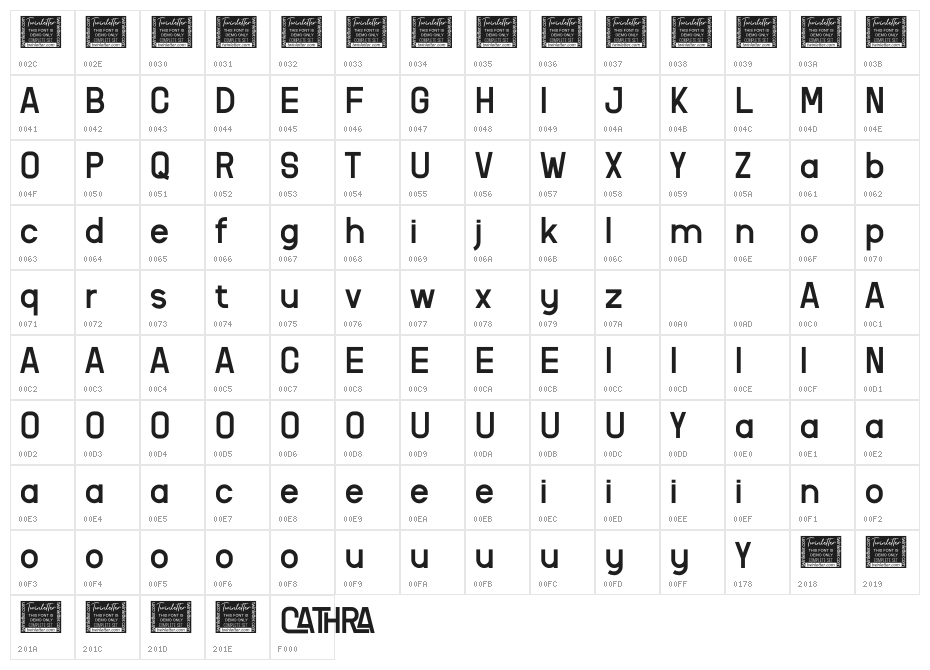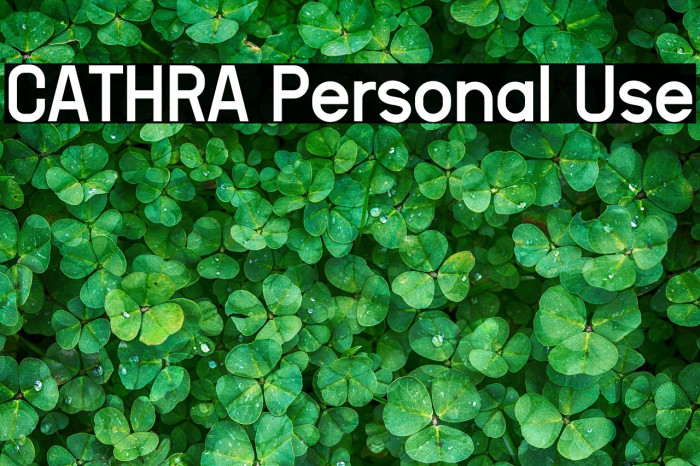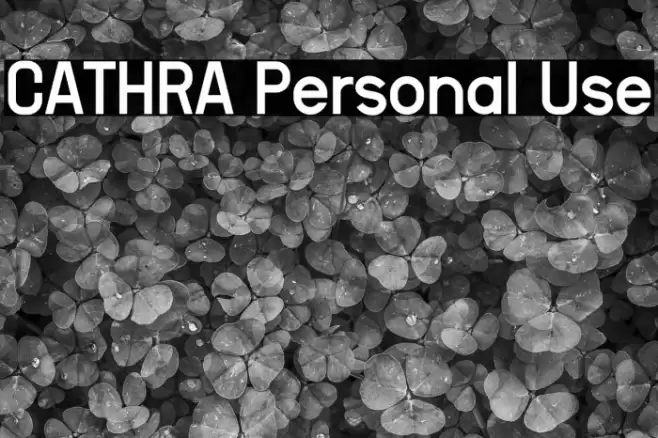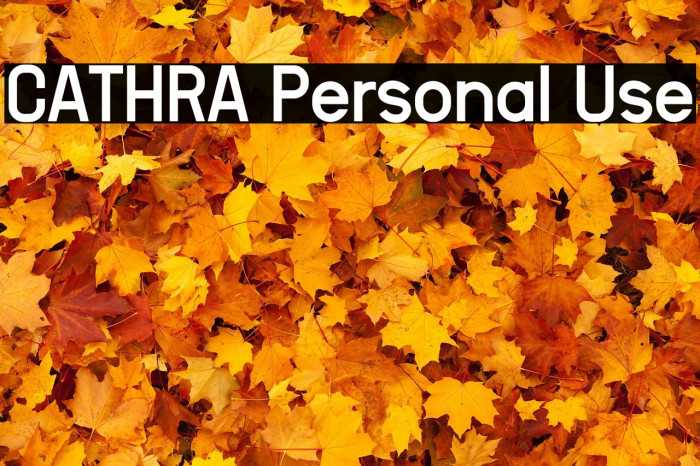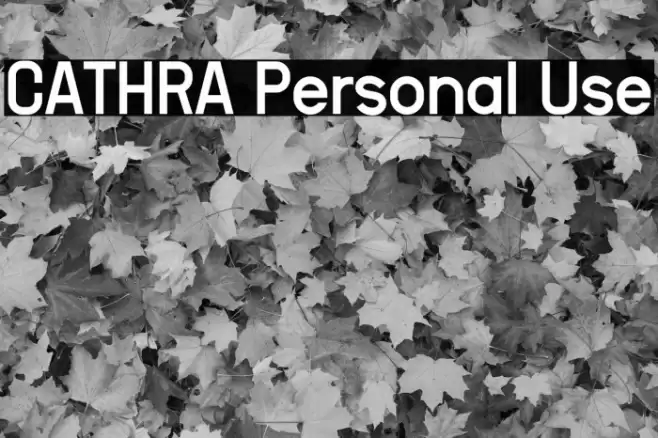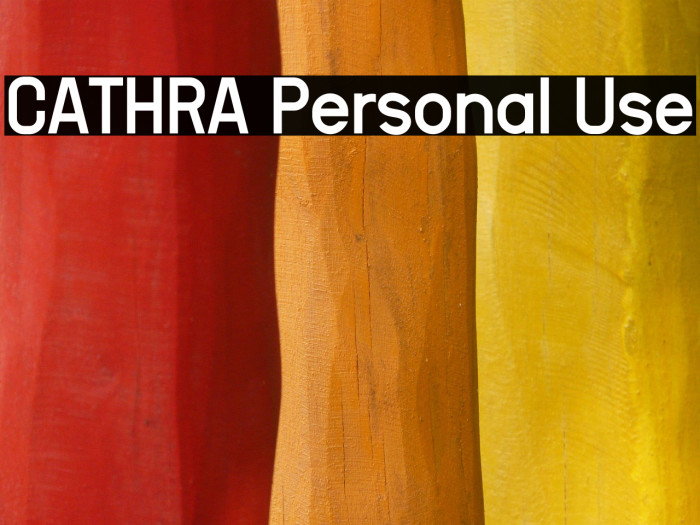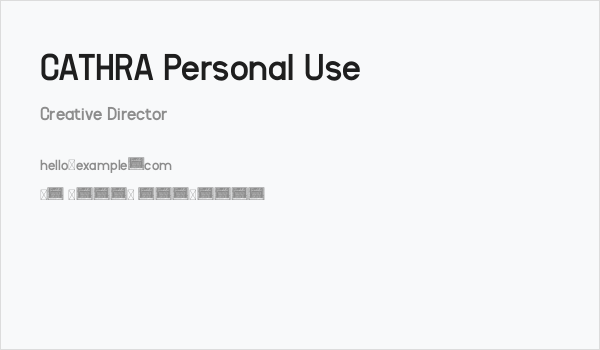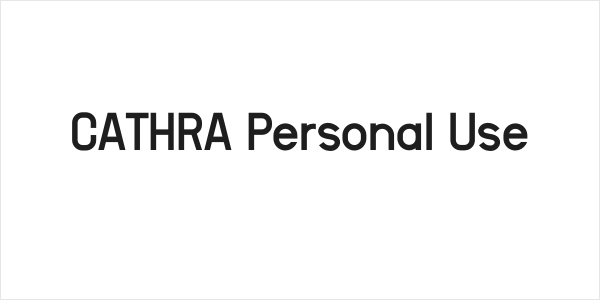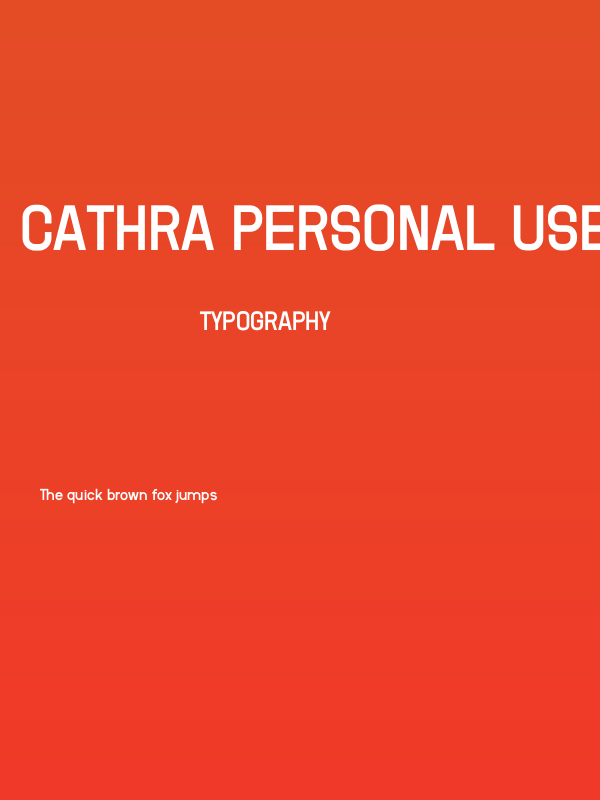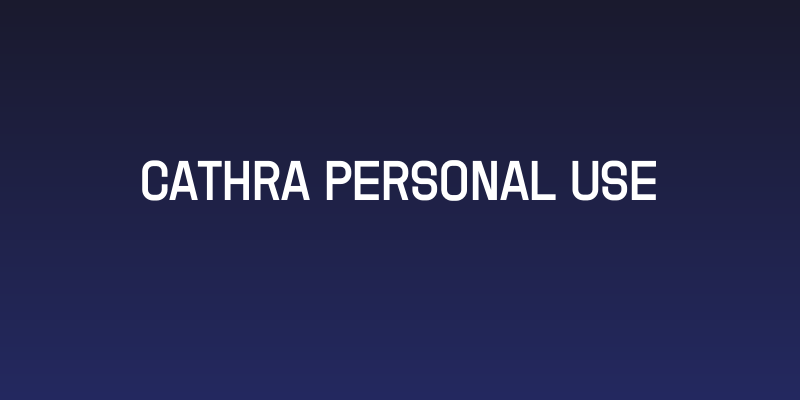
CATHRA Personal Use Font
CATHRA Personal Use Description
This font features a clean and modern sans-serif style with uniform stroke widths, giving it a bold and impactful appearance. The uppercase and lowercase letters are well-proportioned, maintaining a consistent height and width that enhances readability. The characters are slightly condensed, which allows for efficient use of space without sacrificing clarity. The numerals and special characters are designed to match the overall aesthetic, ensuring a cohesive look across different text elements. This font's simplicity and versatility make it suitable for a wide range of applications.
| Proposed Projects | Ideal for branding, advertising, headlines, and digital content where a strong, modern presence is desired. |